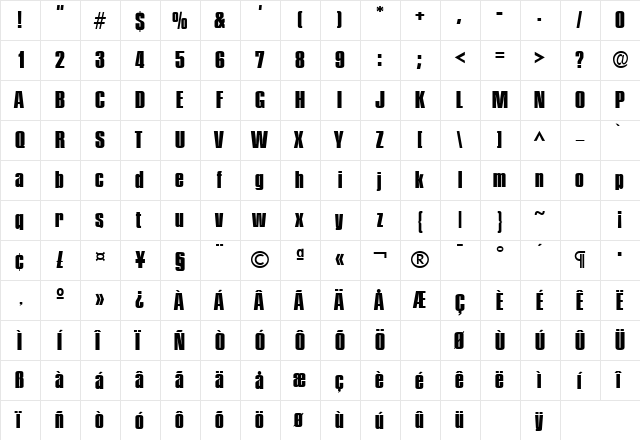
Plakette 4 SF Regular
Plakette 4 SF offers clean, dependable letterforms without strong stylistic allegiance, making it a practical choice for designers who need flexibility.